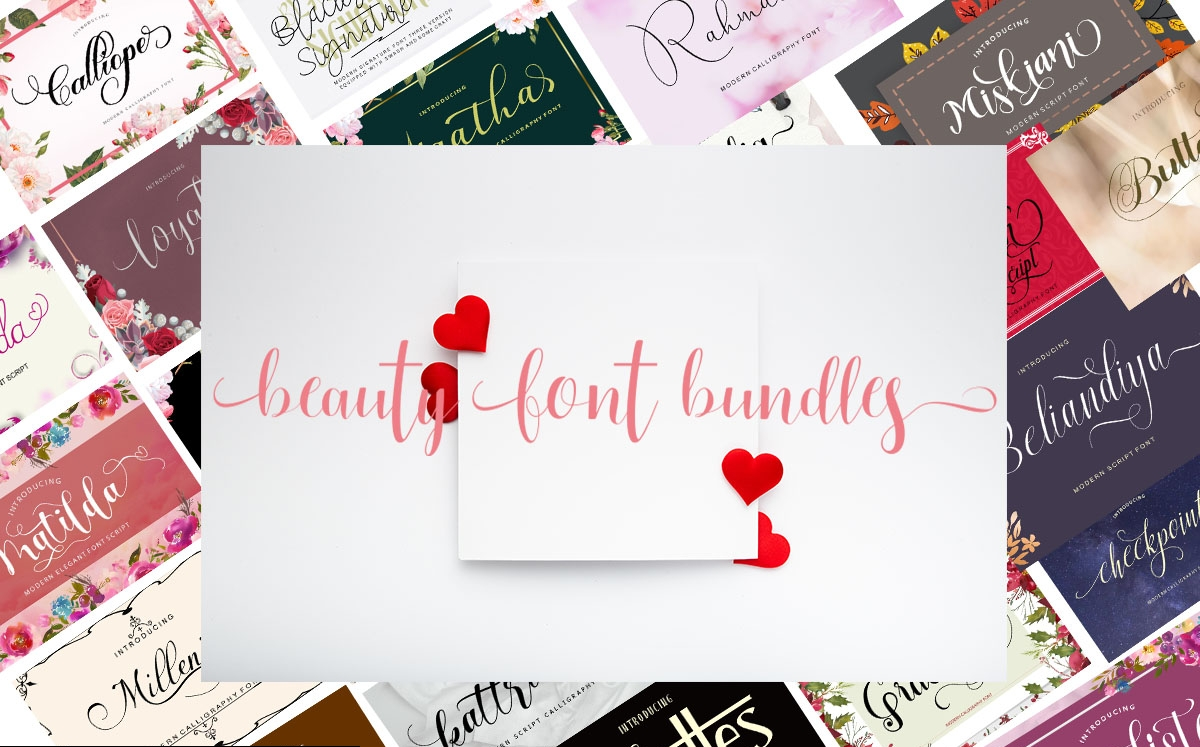
The Beauty Font Bundle offers a stunning collection of carefully crafted typefaces designed to elevate your creative projects. This bundle includes a variety of font styles, from elegant scripts to modern sans-serifs, ensuring you have the perfect typeface for every occasion.
- Multiple font styles: script, serif, sans-serif, and display fonts
- Various weights for flexibility in design
- High-quality letterforms that enhance readability
- Unique character sets including multilingual support
- Weights: Light, Regular, Bold, and more
- Ideal for branding, logos, and promotional materials
- Perfect for web design and print applications
- Use in UI design for a polished and professional look